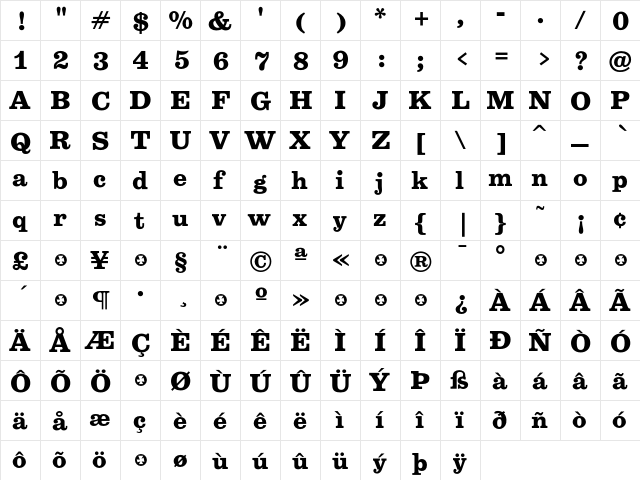
BelizioBold Regular
Design Context for BelizioBold Typeface
BelizioBold offers clean, dependable letterforms without strong stylistic allegiance, making it a practical choice for designers who need flexibility. Its bold stroke weight gives it real presence on the page.
Pro Tip: Pair BelizioBold with a font of contrasting weight or personality to build a more expressive typographic hierarchy.